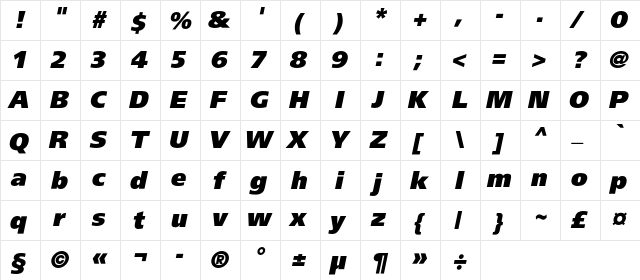
AGForeignerUltraBlackC Italic
Design Context for AGForeignerUltraBlackC Typeface
AGForeignerUltraBlackC is a composed and adaptable typeface that performs quietly and consistently across a wide range of design contexts. The dynamic lean of this cut emphasises speed and emphasis in any layout.
Pro Tip: Use AGForeignerUltraBlackC for emphasis, pull quotes, and subheadings where its slanted energy can add rhythm to the layout.